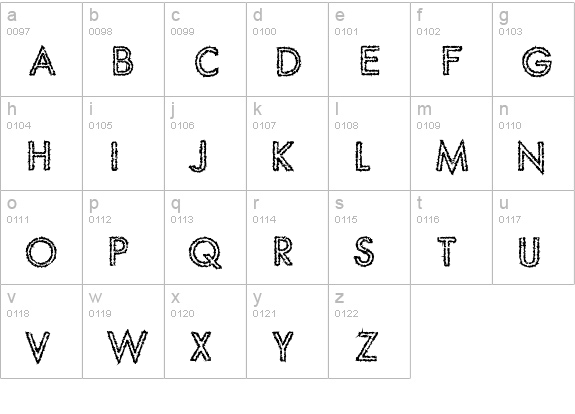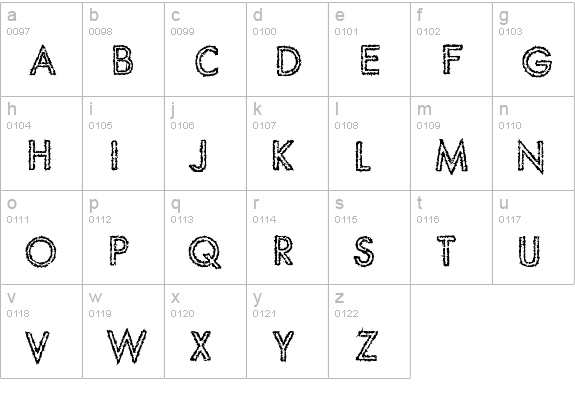
Spike Crumb Geiger font is a unique and eye-catching typeface that is sure to make a bold statement in any design project. This font is inspired by the futuristic and edgy aesthetics of Geiger counters, adding a touch of sci-fi and technology to your designs. With its sharp edges and distinctive shapes, Spike Crumb Geiger font commands attention and adds a sense of intrigue to any text. Whether you're designing a poster, logo, or website, this font will instantly elevate your design to a whole new level. Not only does Spike Crumb Geiger font offer stunning visuals, but it also offers the convenience of being free. That's right, this font is freely available to download at FontsMarket.com. You can now enjoy the versatility and impact of this font without any cost, making it a valuable addition to your font collection. Whether you're a professional designer or a hobbyist, Spike Crumb Geiger font is a must-have for anyone looking to add an element of sophistication and modernity to their designs. So why wait? Download Spike Crumb Geiger font today from FontsMarket.com and unleash your creativity!